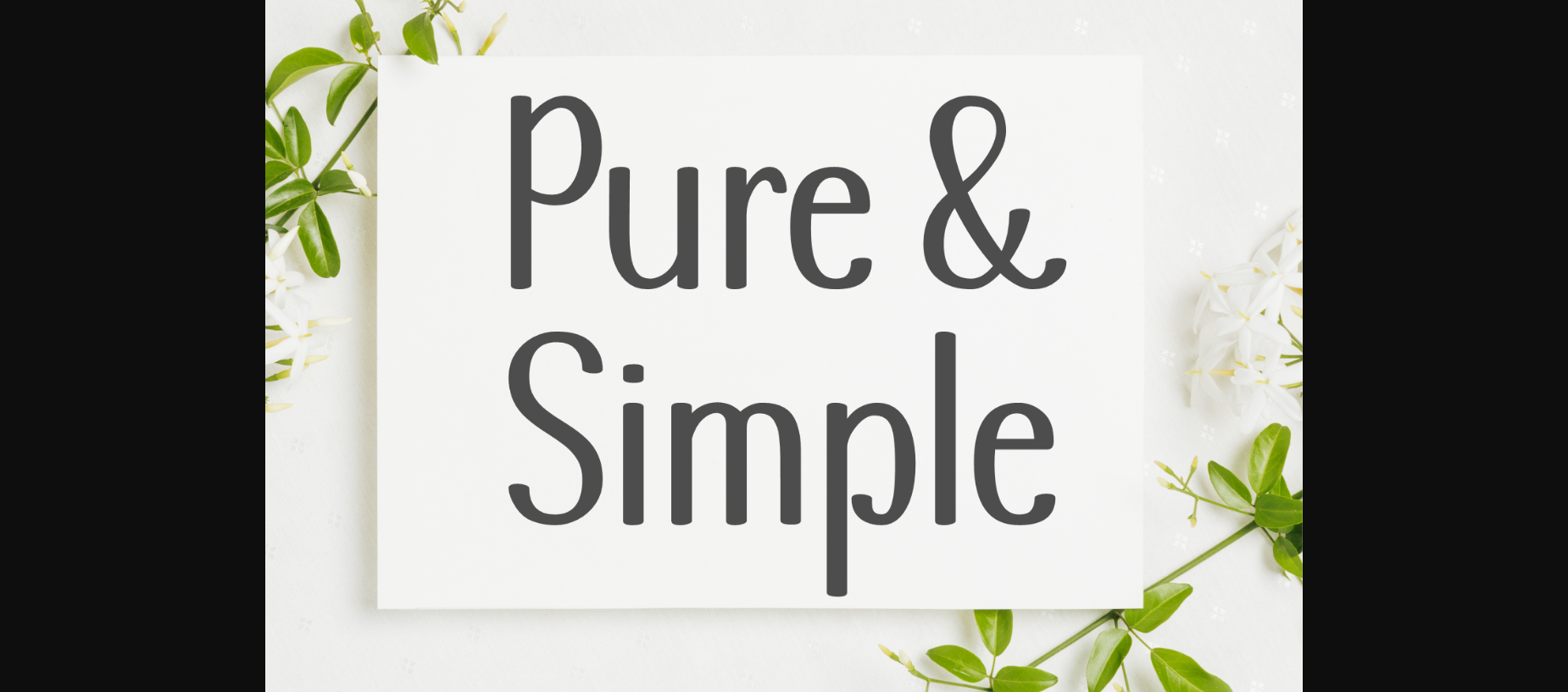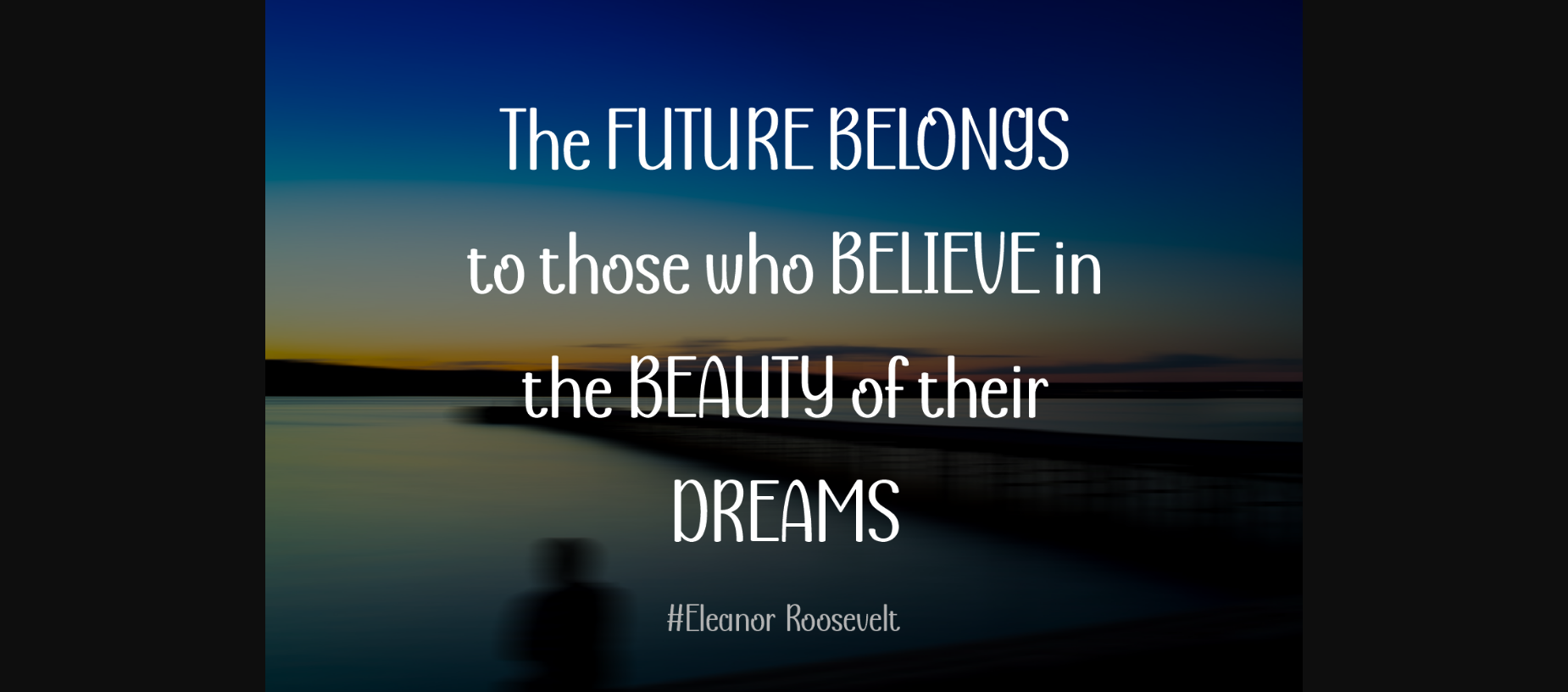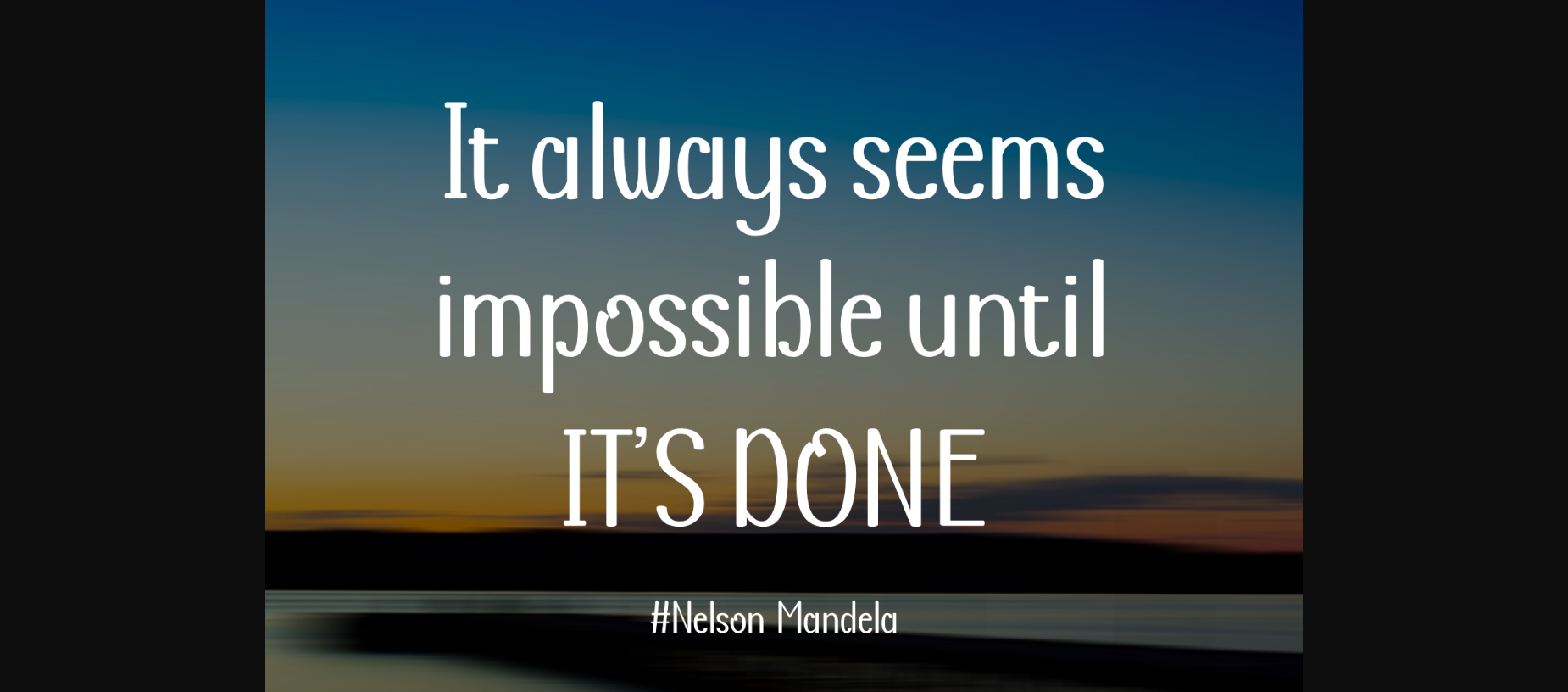
About Pure & Simple Font
Looking for a clean and timeless font, the Pure & Simple font is a creative sans serif that will bring a classic feel to your creative projects. It offers multilingual support, and can be used with cutting machines such as Cricut and Silhouette.